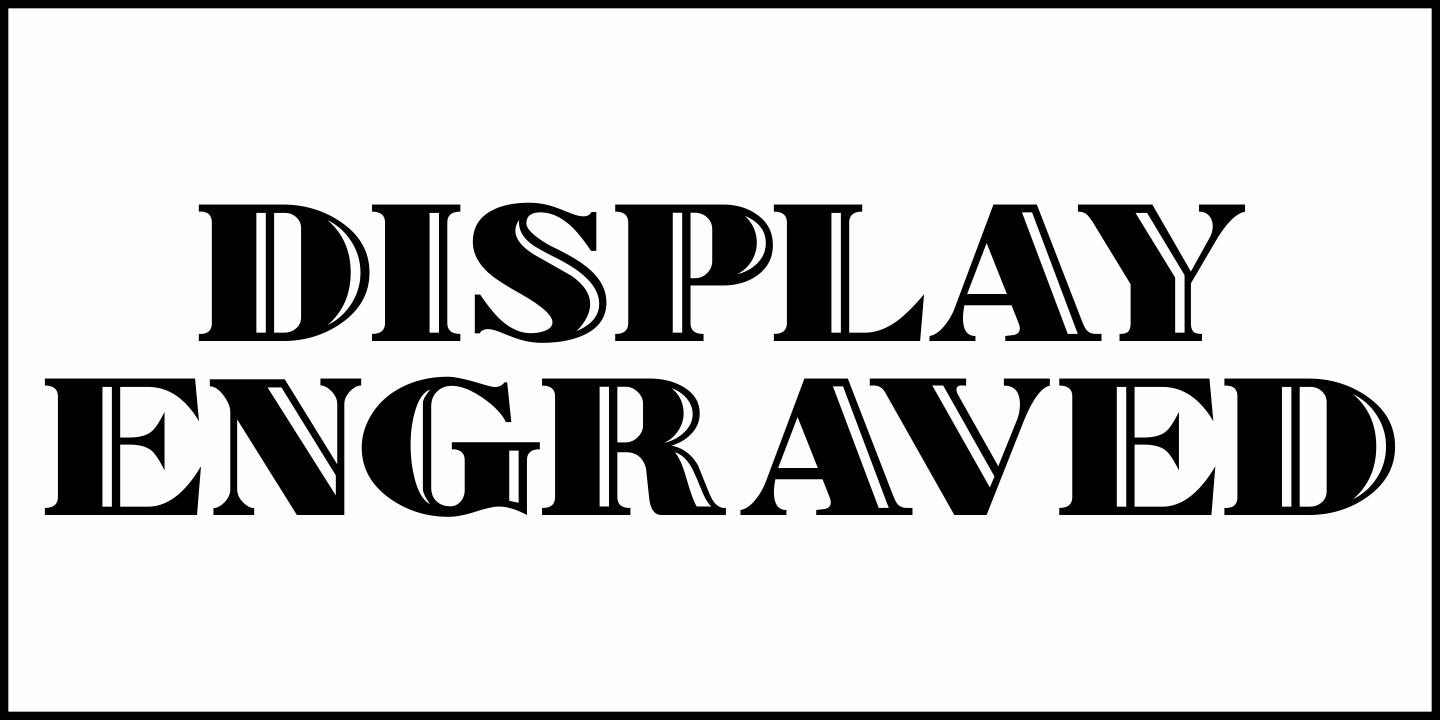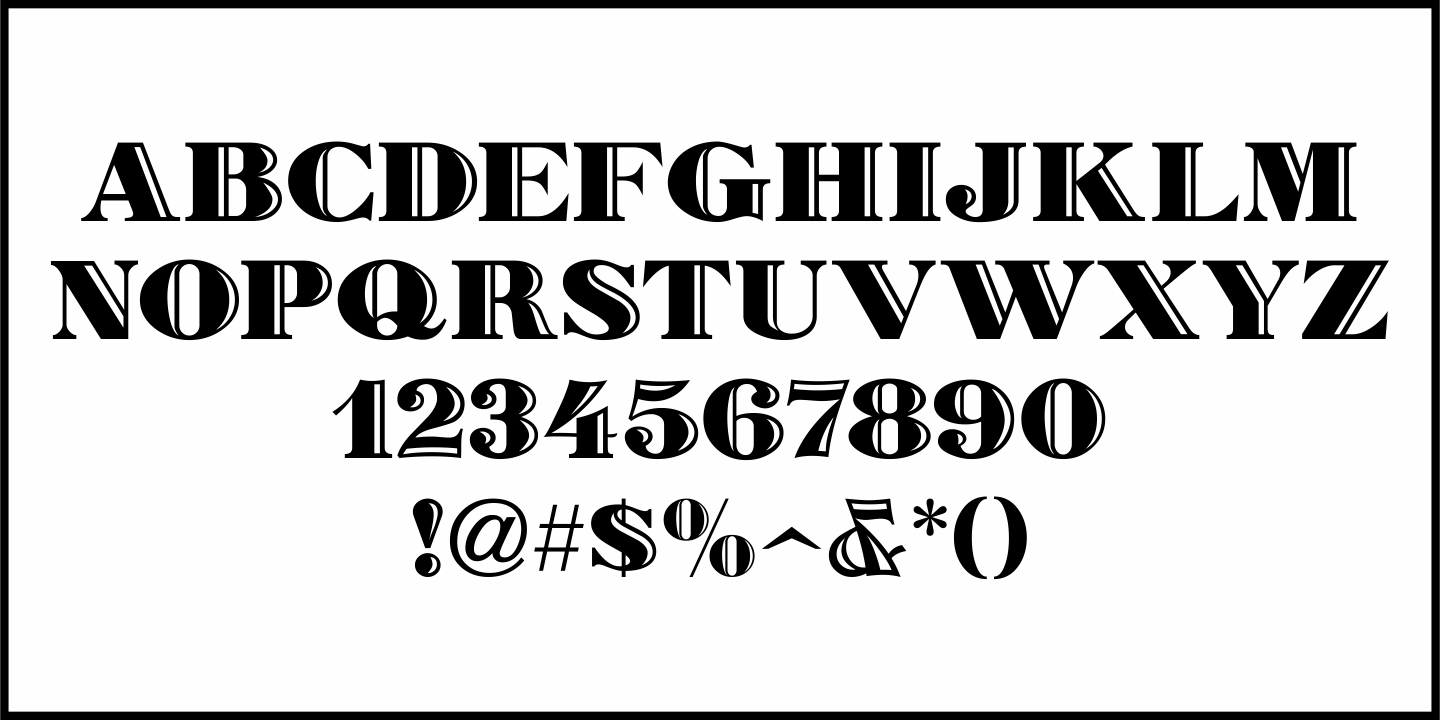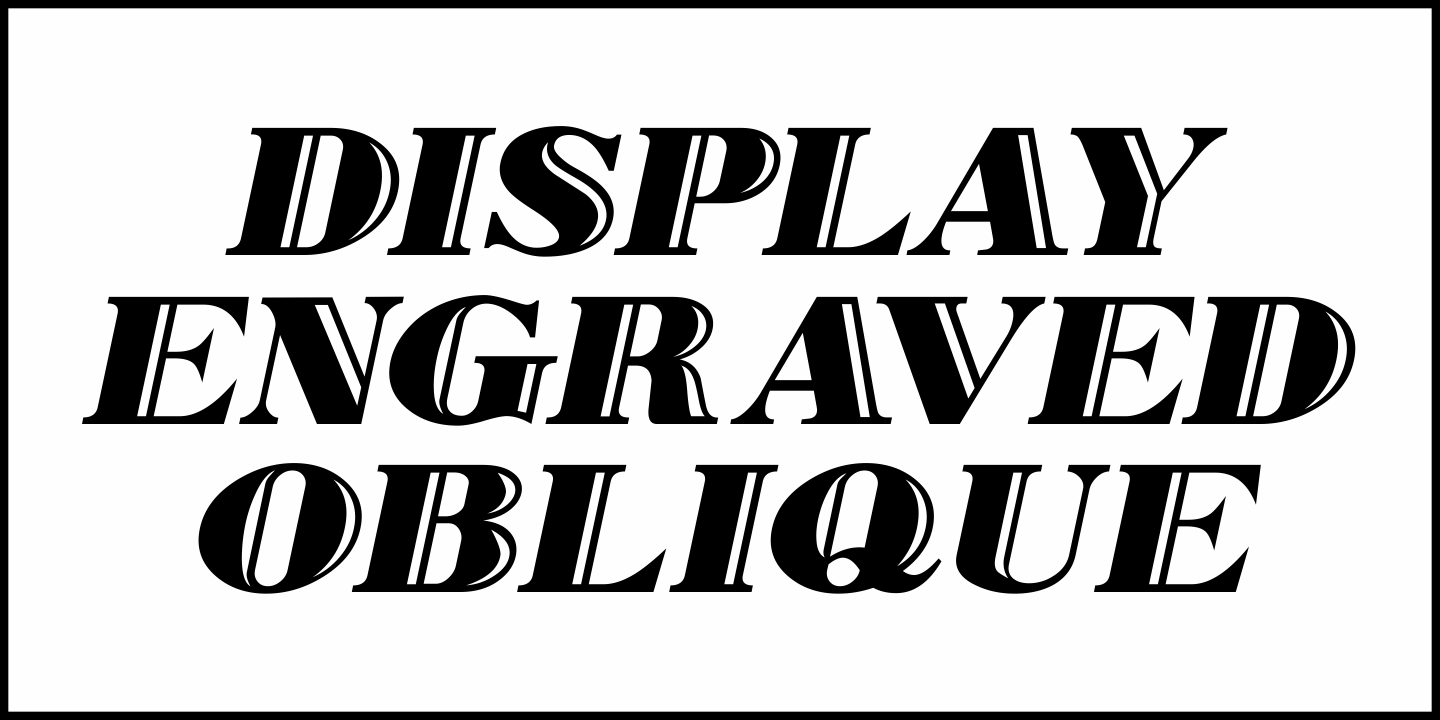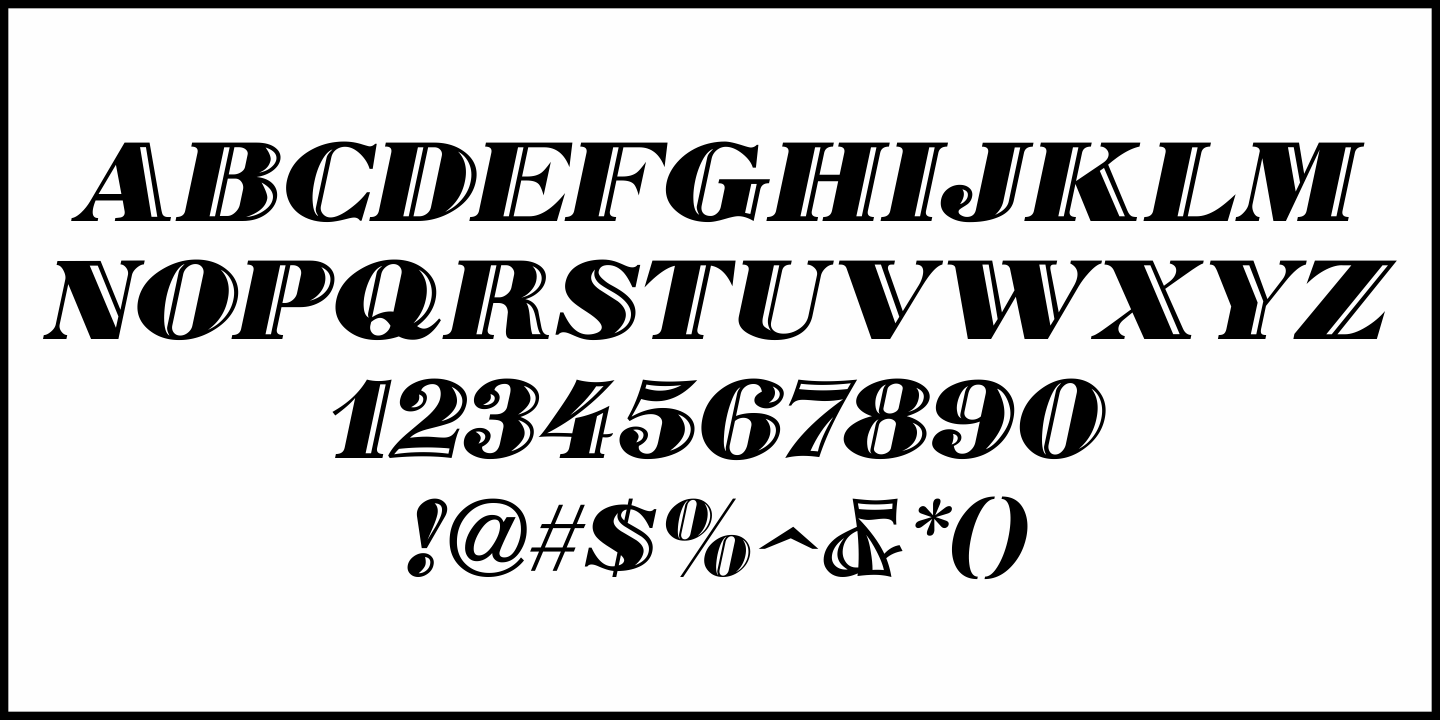
Display Engraved
Display Engraved JNL was inspired by the bold, engraved Sphinx Blanc from the Deberney & Peignot circa 1925, and is available in both regular and oblique versions.